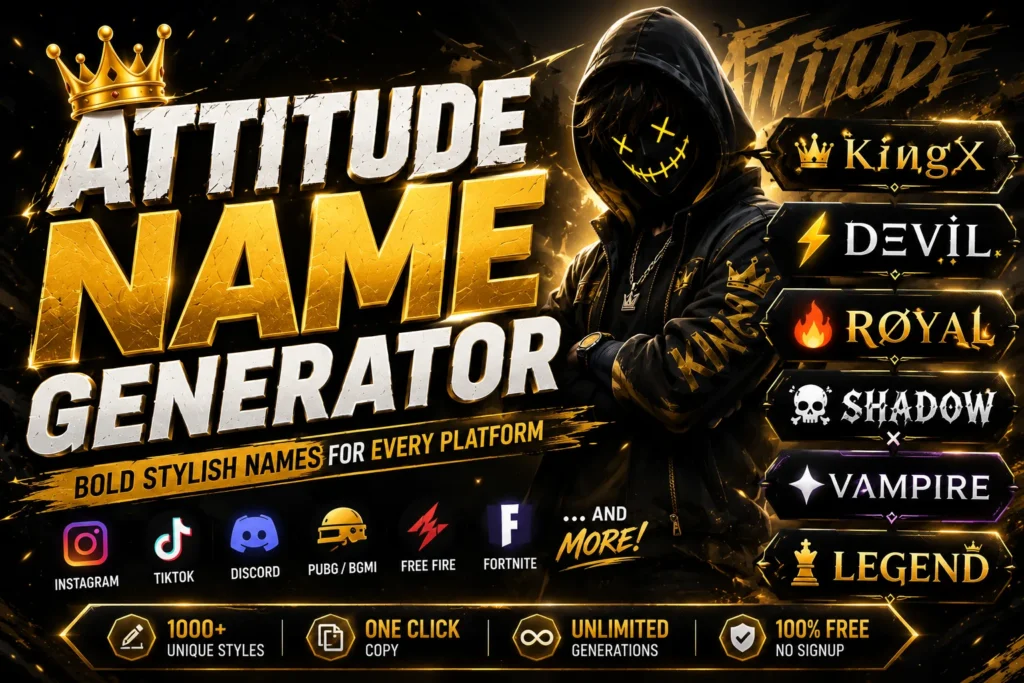
Attitude Name Generator: Bold Stylish Names for Every Platform
Type “Rahul123” into a search bar and nothing happens. Type an attitude name like “SⱠค𝔦Ꮆ𝕙Ꭼr” and people stop scrolling. That’s the entire appeal in one sentence, and it’s why attitude names have quietly become one of the most searched name styles online.
If you’ve landed here, you probably want one of two things: a ready-made name you can copy right now, or an understanding of how to build your own so you’re never stuck copying someone else’s. This guide covers both, plus the practical stuff most generators skip, like which platforms will actually let you use the symbols you picked.
What Is an Attitude Name?
An attitude name is a username or profile name built to communicate confidence, edge, or dominance before anyone reads a single word you post. It usually combines a strong or slightly aggressive word (Killer, Savage, Rebel, King) with decorative Unicode fonts, brackets, and symbols that most keyboards can’t type directly.
The name doesn’t have to mean anything literal. Nobody calling themselves “Dark Devil” on Free Fire is claiming a personality trait. It’s a signal, closer to a jersey number than a biography. The bold font does the same job a leather jacket does in a photo. It sets a tone before the content behind it even loads.
This is different from an “attitude font,” which refers to the typography itself (the bold, gothic, or cursive Unicode style) rather than the finished name. People searching for attitude fonts usually want to style existing text like a bio, a shayari line, or a WhatsApp status, not necessarily build a new username.
Why People Actually Choose Attitude Names
Three groups drive almost all the demand, and they want slightly different things:
Social media users on Instagram and WhatsApp want their bio or display name to stand out in a feed where everyone else is using default fonts. A styled name is one of the few remaining ways to look distinct on platforms that otherwise look identical from account to account.
100+ Ready-Made Attitude Names
Type a base word into the generator above for unlimited combinations, or pick straight from these. Every name below is tested to render correctly on current Android and iOS keyboards.
Boss and Savage Attitude Names
• Silent Killer
• Lone Wolf
• Savage King
• Dark Devil
• Toxic Prince
• Rude Boy
• Ghost Rider
• Mafia Don
• Bad Blood
• Fear Less
• Death Stroke
• Cold Blood
• Villain Mode
• Danger Zone
• No Mercy
Girl Attitude Names
• Queen of Hearts
• Boss Babe
• Drama Queen
• Fierce Girl
• Wild Rose
• Savage Queen
• Ice Princess
• Devil Girl
• Toxic Barbie
• Attitude Diva
• Cute Killer
• Sassy Soul
• Rebel Girl
• Broken Angel
• Miss Perfect
Boy Attitude Names
• Mr Perfect
• Bad Boy
• Attitude King
• Royal Player
• Alpha Male
• Street Fighter
• Dark Knight
• Iron Heart
• Wild Beast
• Storm Chaser
• Loner Boy
• Cool Dude
• Reckless One
• Silent Storm
• King Cobra
Short Attitude Names (for tight character limits)
• Danger
• Toxic
• Rebel
• Beast
• Legend
• Savage
• Ghost
• Venom
• Killer
• Chaos
• Rogue
• Alpha
• Wraith
• Shadow
• Havoc
Attitude Names for Free Fire and BGMI
• SⱠค𝔦Ꮆ𝕙Ꭼr ツ
• 𝓓𝓪𝓻𝓴 𝓛𝓸𝓻𝓭
• ×͜× Kíllєr
• ꧁༒☬Rᴀᴊᴀ☬༒꧂ (shortened for guild use)
• ᴳᵒᵈ Sʟᴀʏᴇʀ
• 乂 ᴠᴇɴᴏᴍ 乂
• тσxic gaмer
• 𝕭𝖑𝖆𝖈𝖐 𝕯𝖊𝖛𝖎𝖑
Keep these under 12 characters if you’re pasting them into Free Fire specifically. See the character limit table below before you spend a rename card.
Attitude Names for Instagram and WhatsApp
• 𝓓𝓻𝓪𝓶𝓪 𝓠𝓾𝓮𝓮𝓷
• 𝕭𝖆𝖉 𝕭𝖔𝖞
• ➳Sassy_Soul➳
• ✿Toxic Barbie✿
• 𝐊𝐢𝐧𝐠 𝐌𝐨𝐝𝐞 🔥
• 𝕮𝖍𝖆𝖔𝖙𝖎𝖈 𝕬𝖓𝖌𝖊𝖑
• Rebel.Heart
Instagram usernames only accept letters, numbers, periods, and underscores, so decorative fonts like these work in your display name or bio, not in the actual @handle. More on that below.
Attitude Name Character Limits by Platform
This is the part most generators never mention, and it’s the reason a name that looks perfect in the tool sometimes gets rejected or cut off in the app. Every decorative character still counts as a character, and some styled letters (the bold, gothic, or double-struck Unicode ones) take up more storage space than a plain letter even though they look the same length on screen.